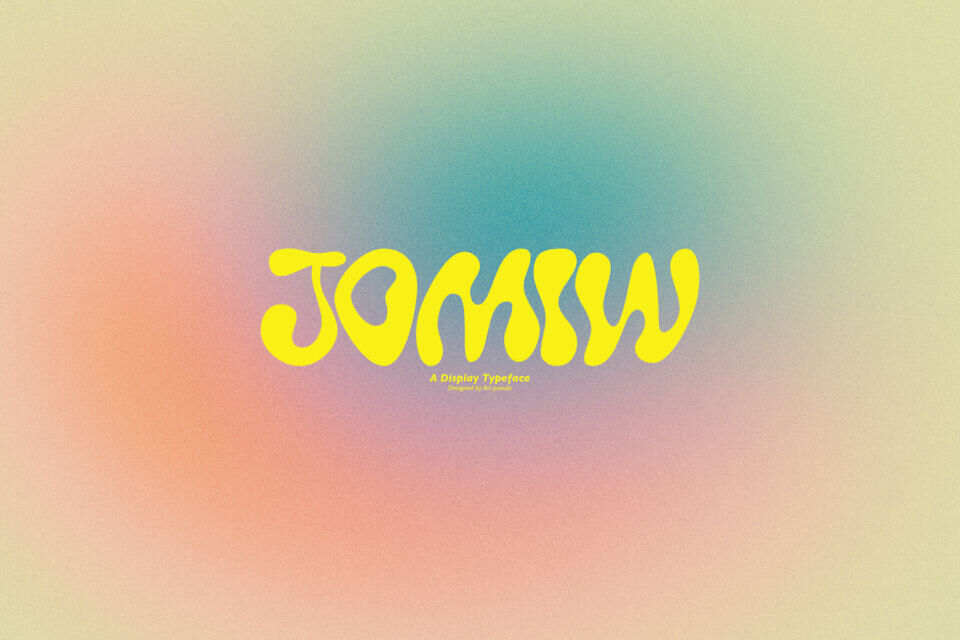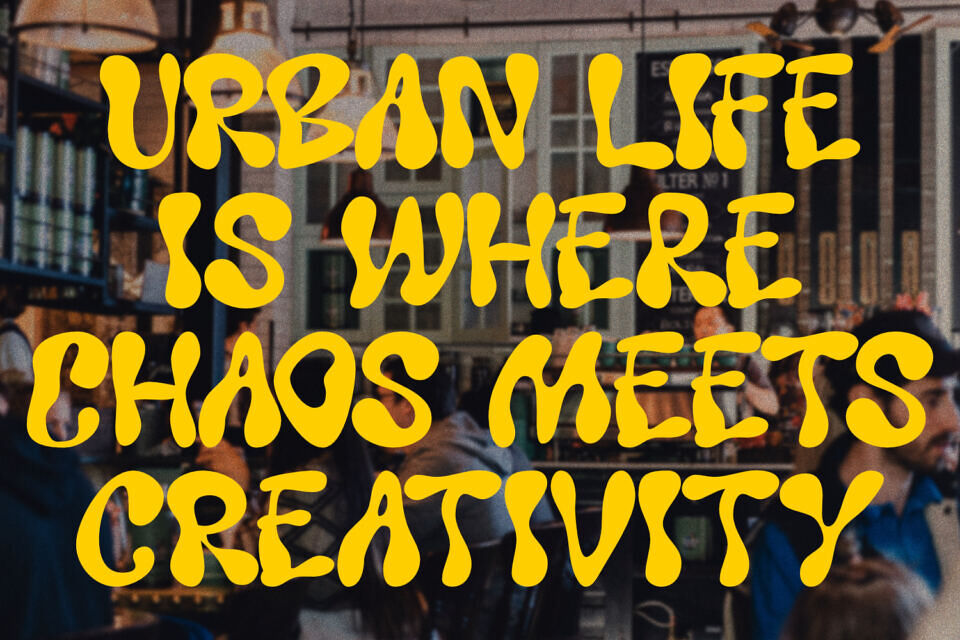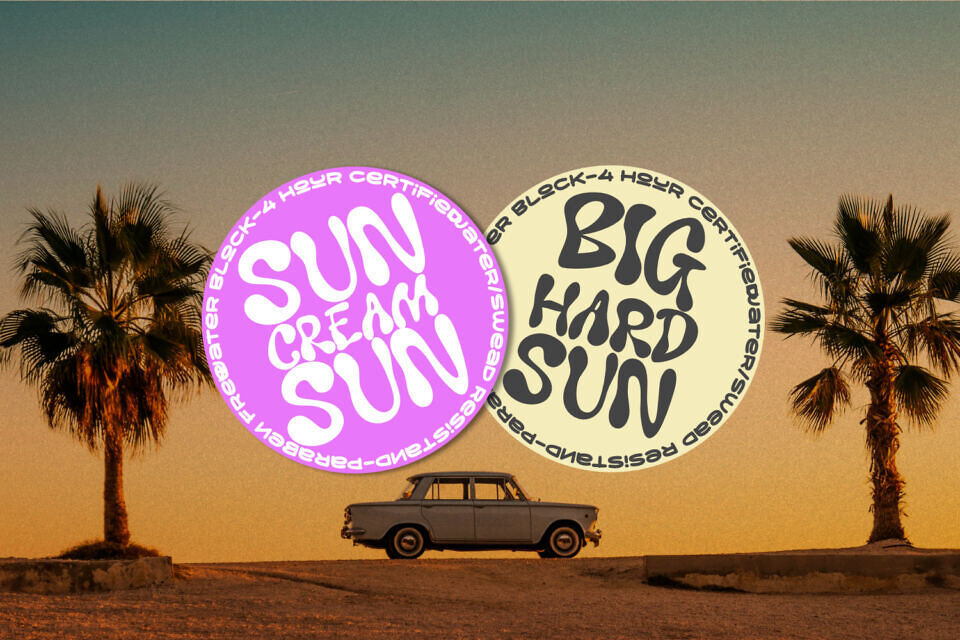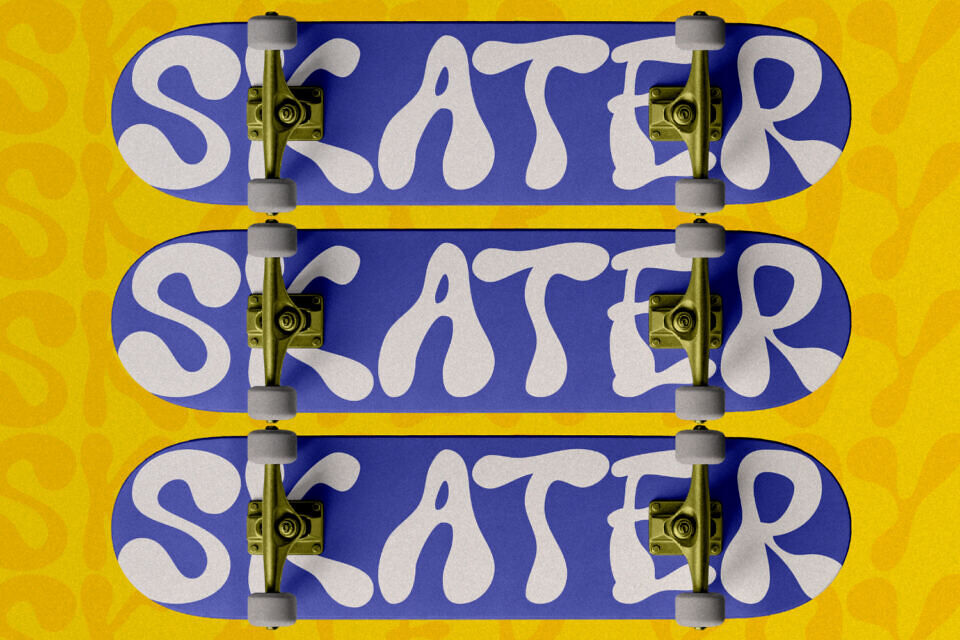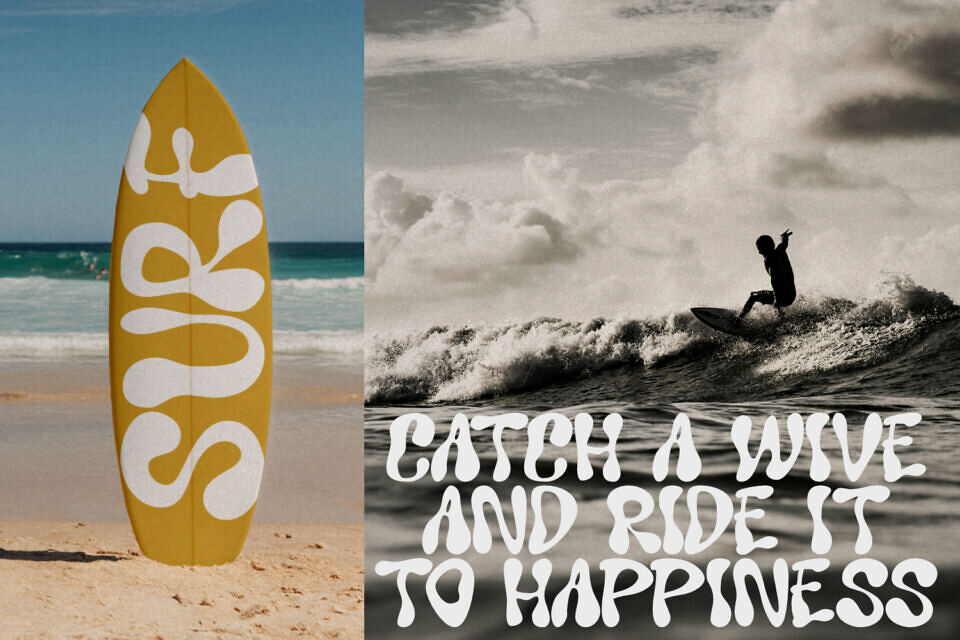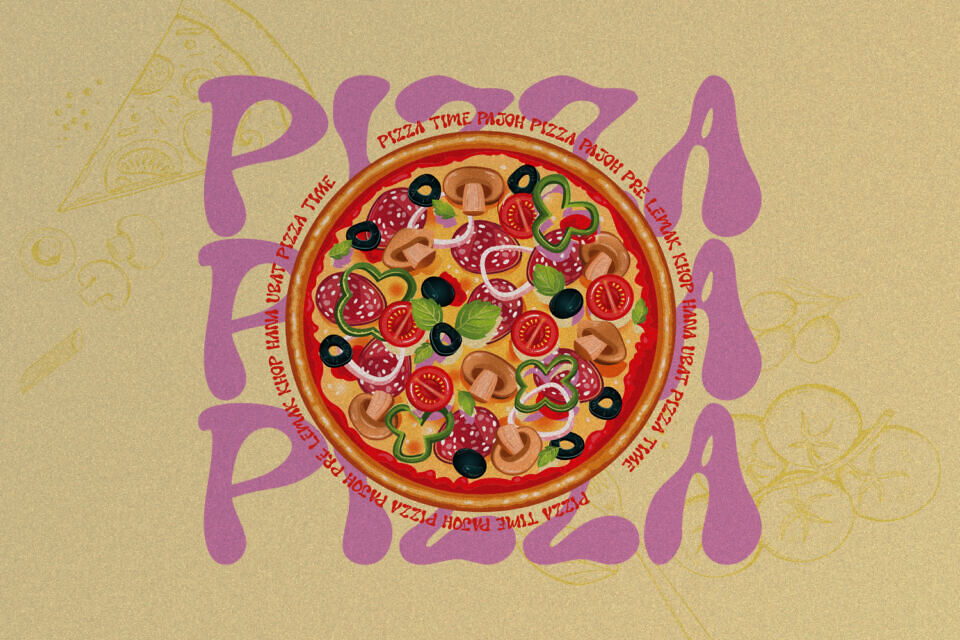
JOMIW is a playful display typeface filled with organic shapes and expressive energy, heavily influenced by the psychedelic counterculture movements of the late 1960s and 1970s. Its fluid and flexible letterforms create a strong retro psychedelic vibe blended with a modern urban touch.
Every character is designed with soft curves and imperfect shapes, giving the font a unique, artistic, and eye-catching personality. The typeface features bold rounded forms that feel friendly yet visually strong. Its flowing structure almost looks melted or freely moving, creating a lively and dynamic rhythm across every word.